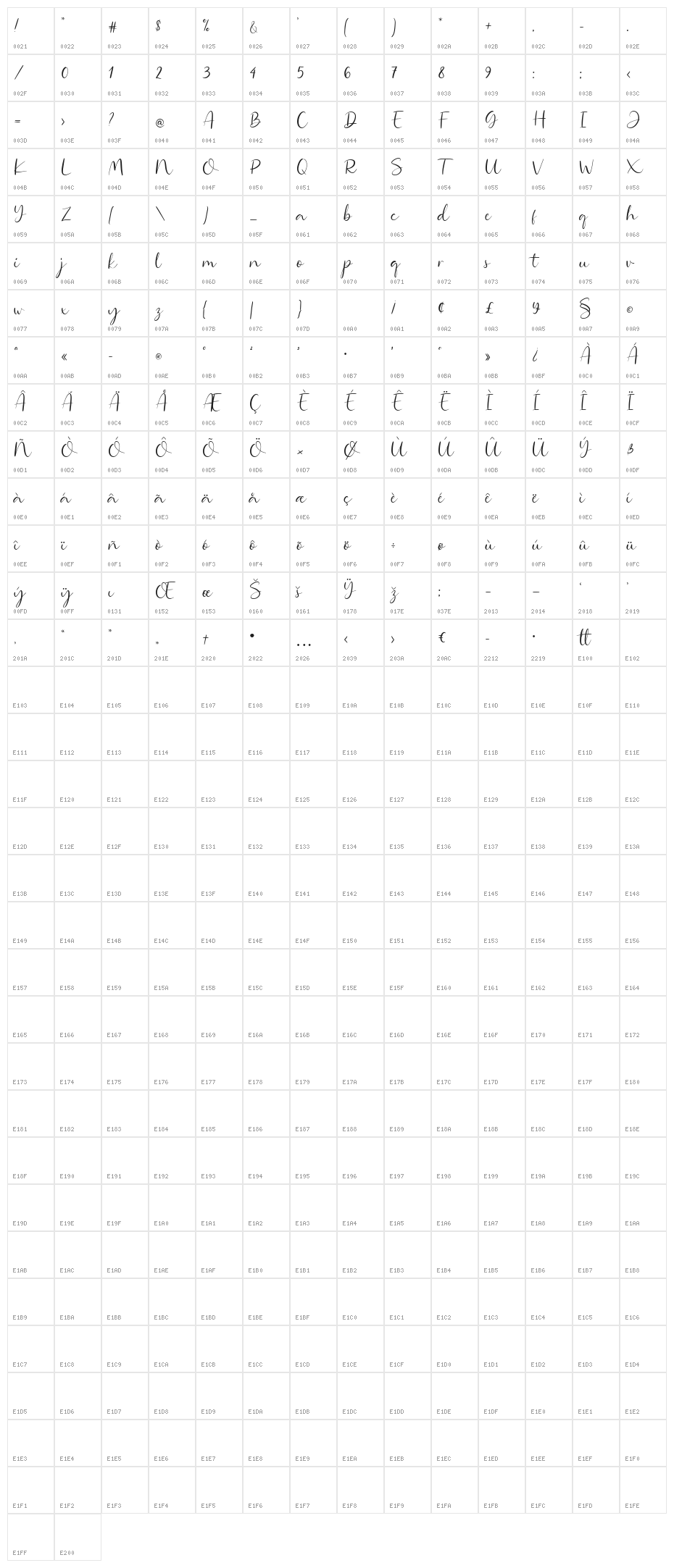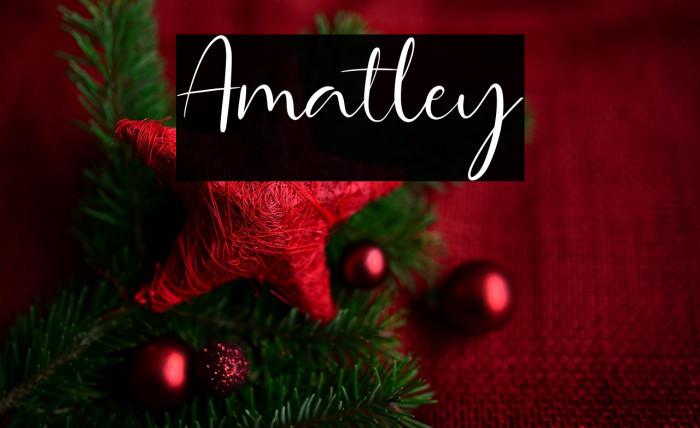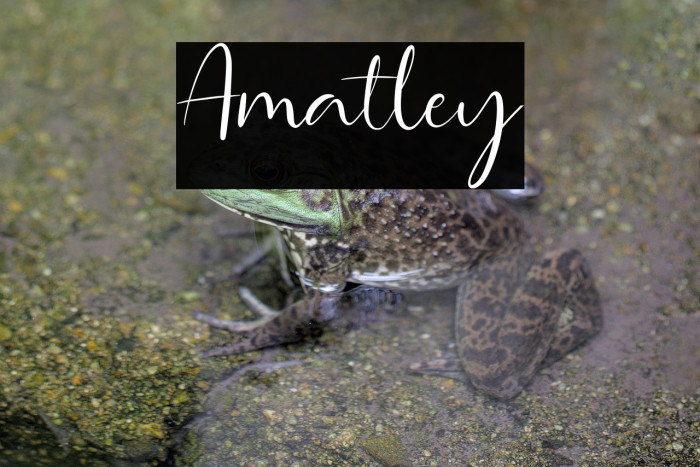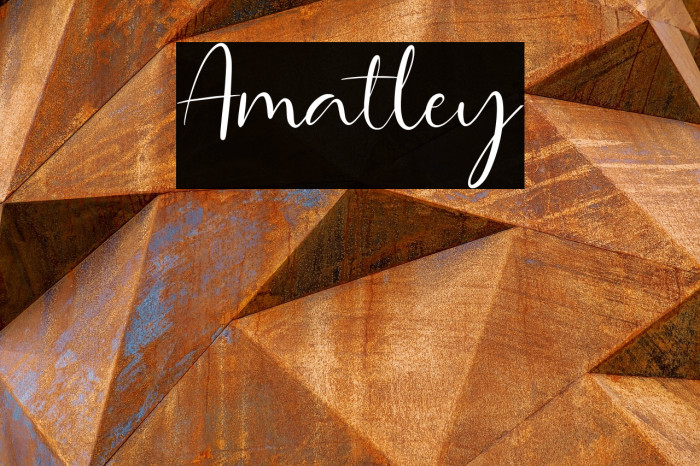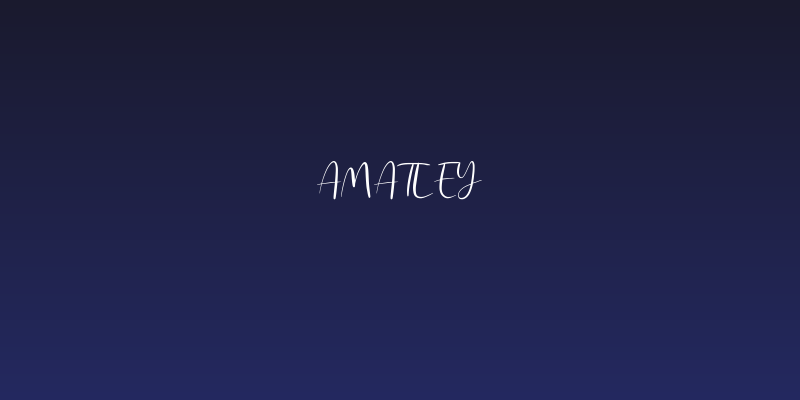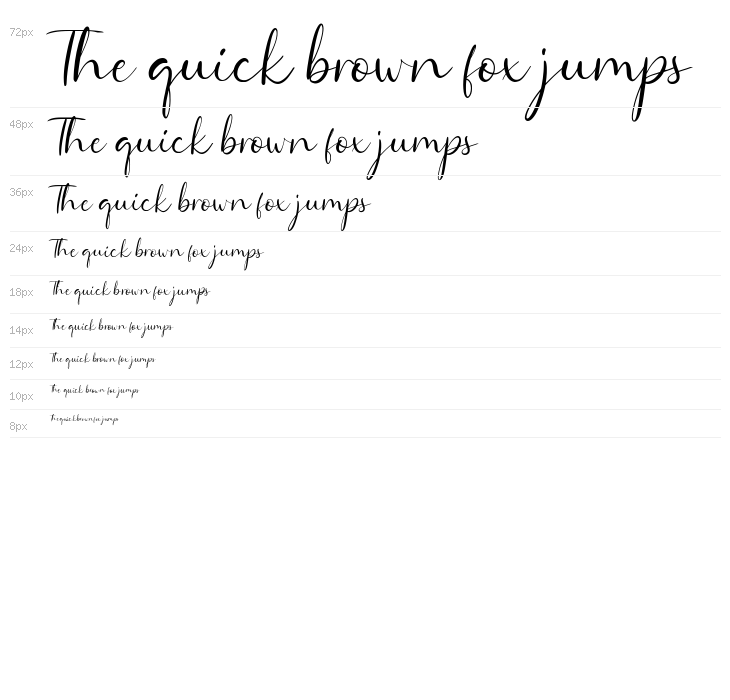
Amatley Font
Amatley Description
This font features a flowing, elegant script style that combines both uppercase and lowercase letters with a sense of fluidity and grace. The characters are connected in a way that mimics natural handwriting, providing a personal and artistic touch. The strokes vary in thickness, adding a dynamic and lively feel to the text. The numbers and special characters maintain the same stylistic approach, ensuring consistency throughout. This font is ideal for projects that require a personal, handwritten aesthetic.
| Proposed Projects | Ideal for wedding invitations, greeting cards, personal branding, and artistic projects. |